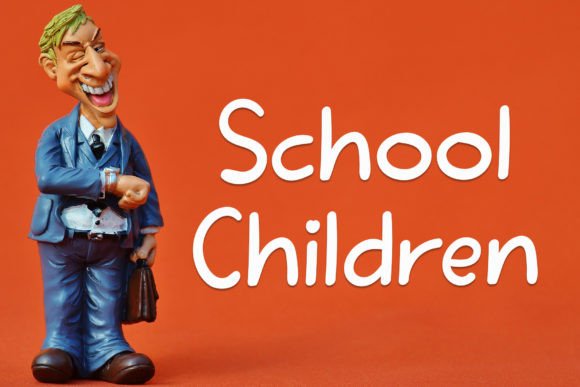
Step into a world of educational flair and charming simplicity with School Children Font, the sans-serif masterpiece designed to capture the essence of youthful enthusiasm and scholastic wonder. This font family is not just a collection of letters; it's an artistic playground where imagination and knowledge intertwine.
Crafted with meticulous attention to detail, School Children Font embodies the spirit of learning, discovery, and boundless creativity. Its clean lines and uncluttered design evoke a sense of clarity and focus, making it the perfect choice for educational materials, children's books, and any design seeking a touch of playful sophistication.
Immerse yourself in the nostalgic charm of School Children Font, a font family that transports you back to the days of chalkboards and wooden desks, where imagination flourished and curiosity knew no bounds. Its graceful curves and playful glyphs evoke feelings of nostalgia and childlike wonder, making it an ideal choice for designs that seek to capture the magic of childhood.
From website design to print materials, School Children Font is a versatile performer, adapting seamlessly to a wide range of applications. Its exceptional legibility ensures that your message is not just seen but deeply felt, while its timeless design guarantees that your creations remain relevant and impactful for years to come.
Unleash the boundless potential of School Children Font and embark on a creative journey where learning and art converge. Let your designs radiate with the energy and vibrancy of a schoolyard filled with laughter and discovery, where every letter tells a story and every word inspires the imagination.